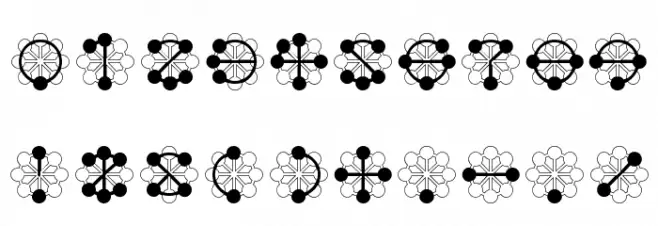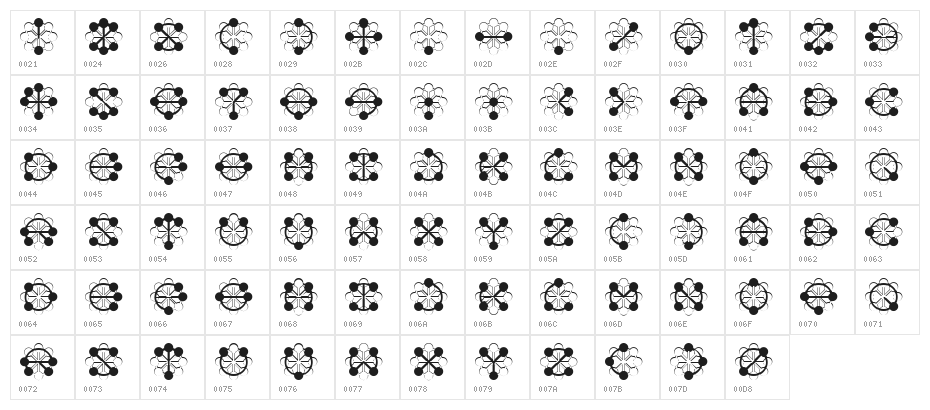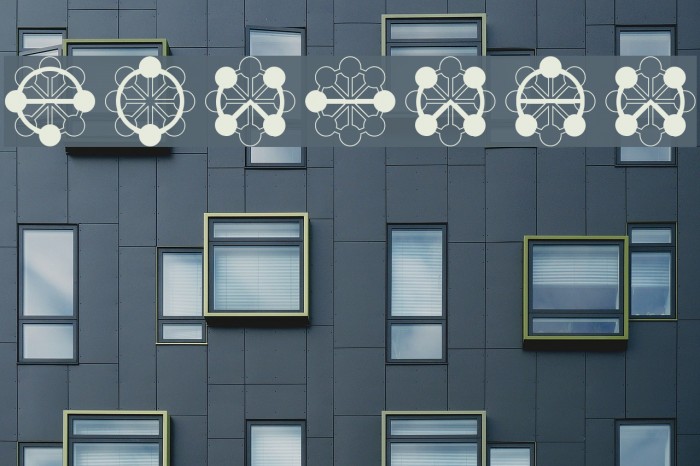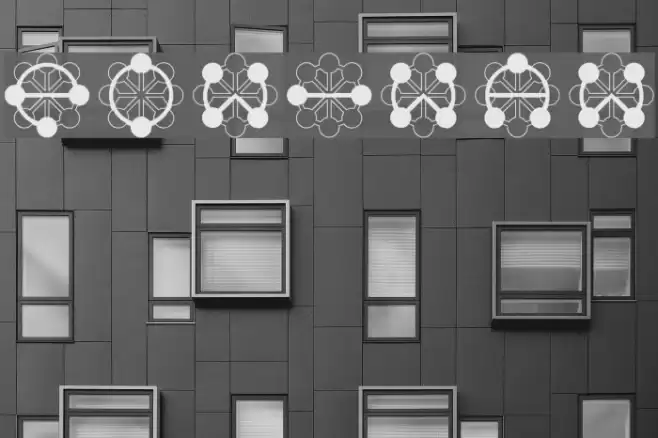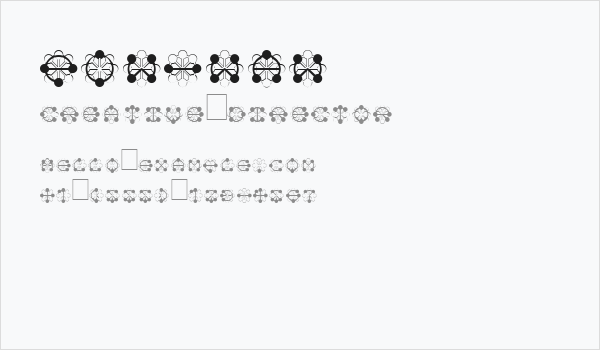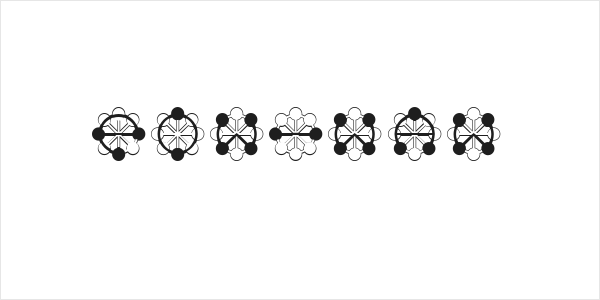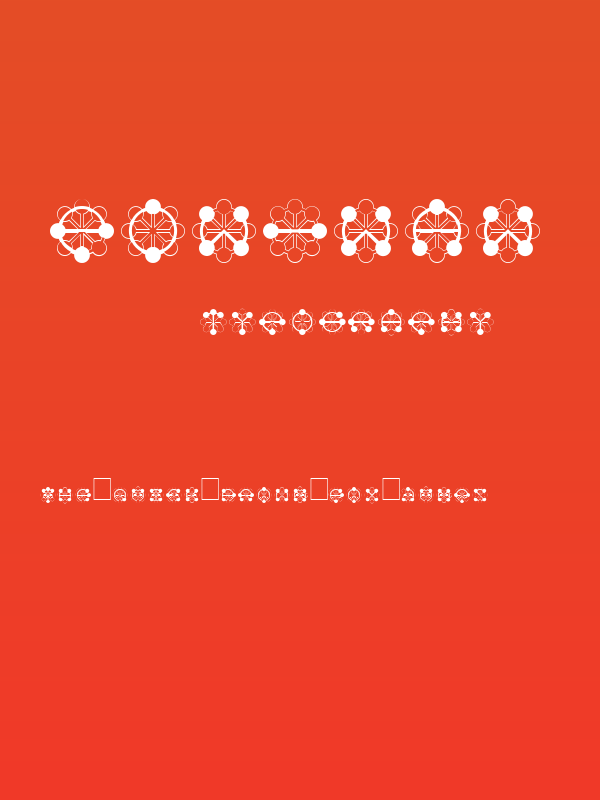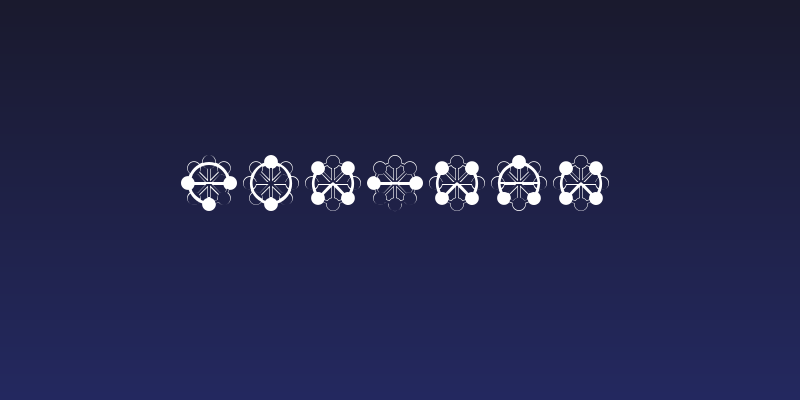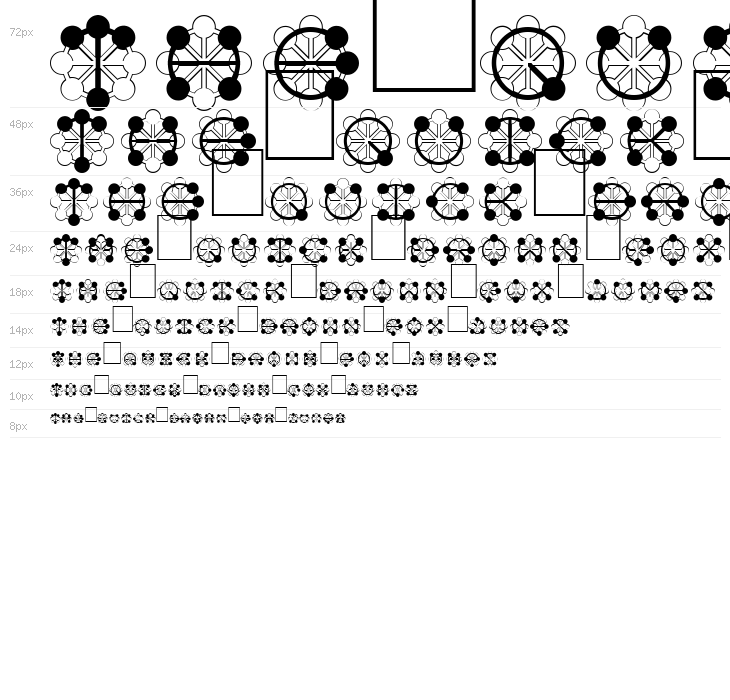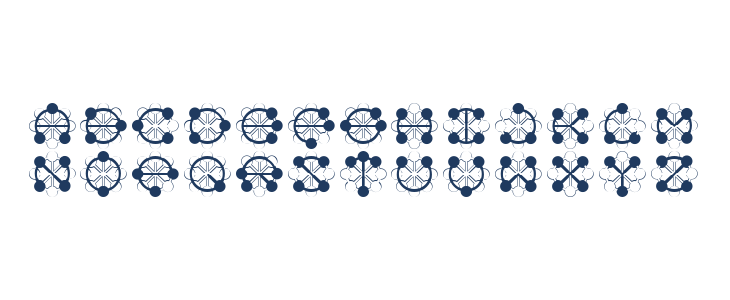
Pow-waw Font
Pow-waw Description
This is not a valid font. The image consists of abstract geometric shapes arranged in a pattern that does not correspond to any recognizable typographic characters or symbols. Each shape appears to be a complex design with circular elements and lines, resembling a decorative motif rather than a functional typeface. The arrangement and repetition of these shapes suggest an artistic or ornamental purpose rather than a communicative one typically associated with fonts.
| Use Case | Decorative elements, not suitable for text. |
| Proposed Projects | This design could be used for decorative purposes, such as wallpaper, textiles, or graphic design elements. |